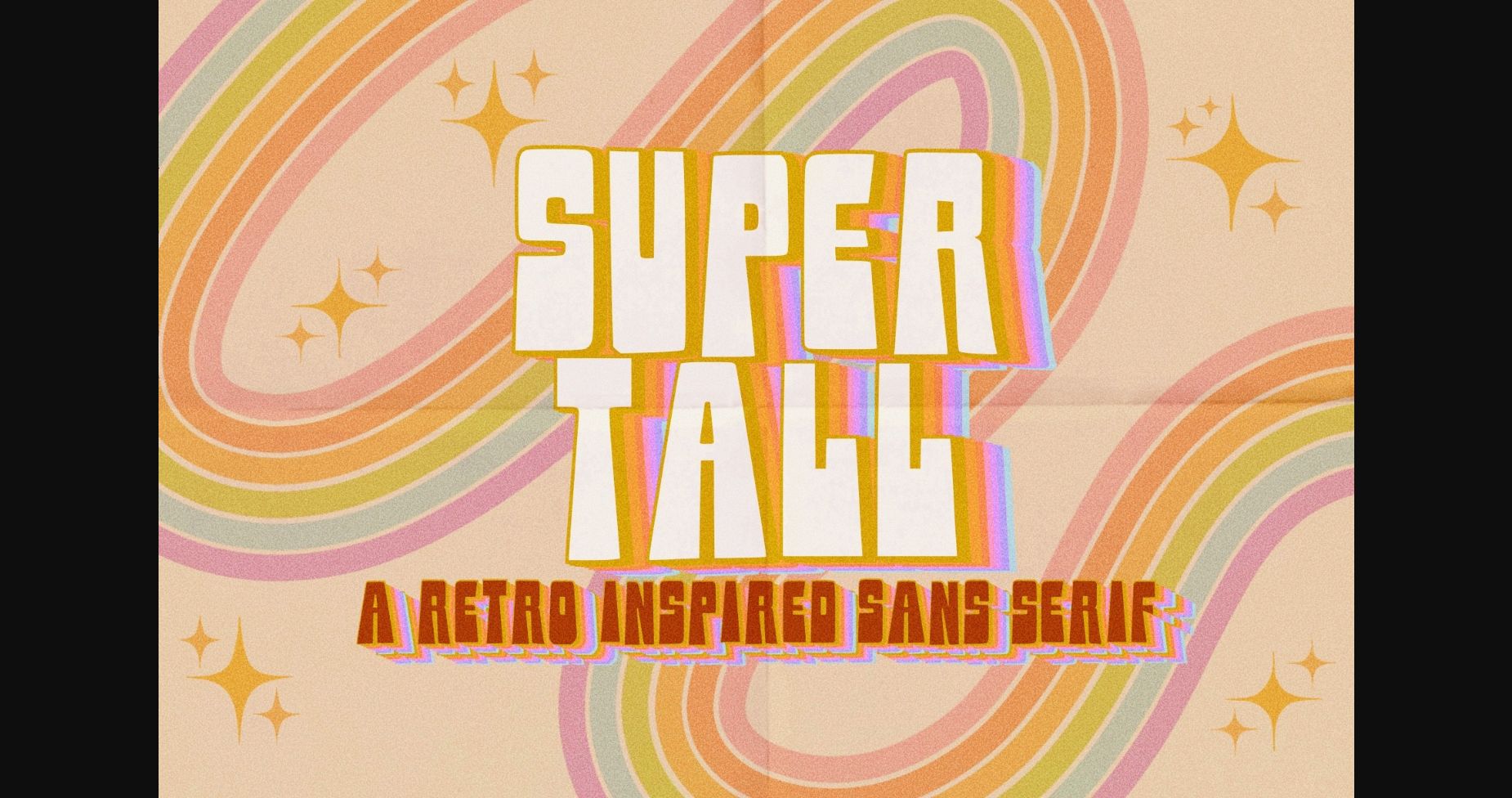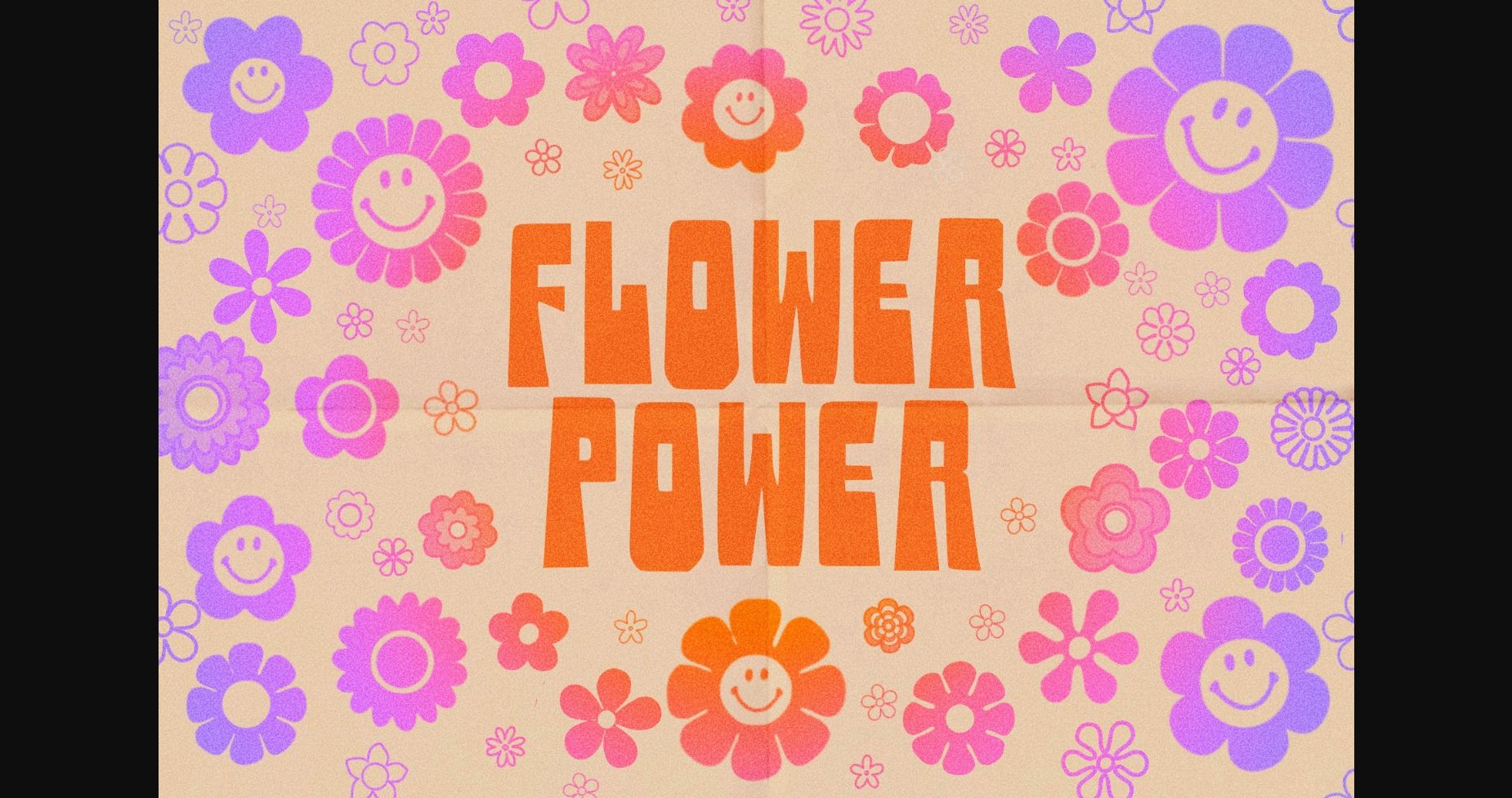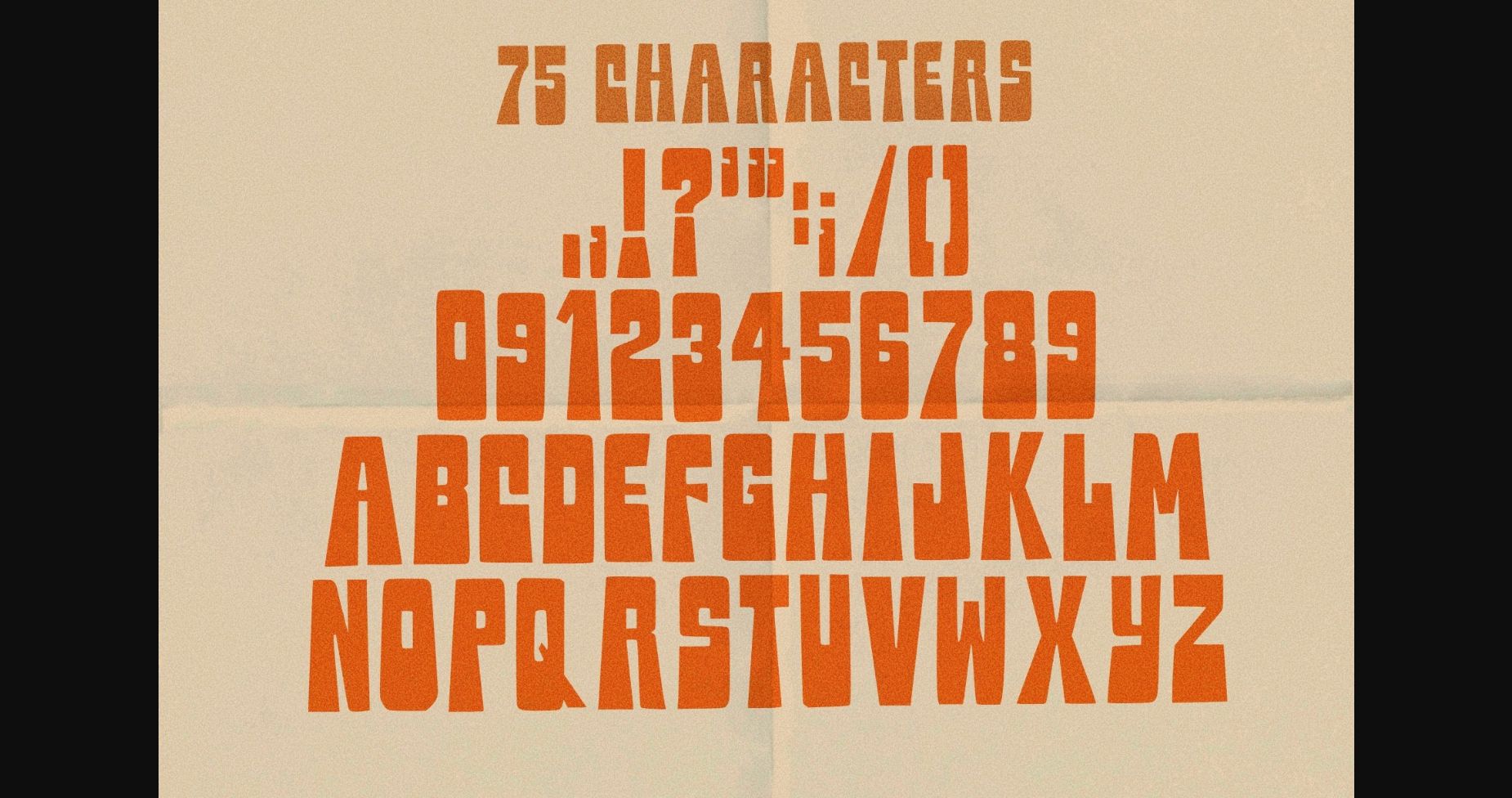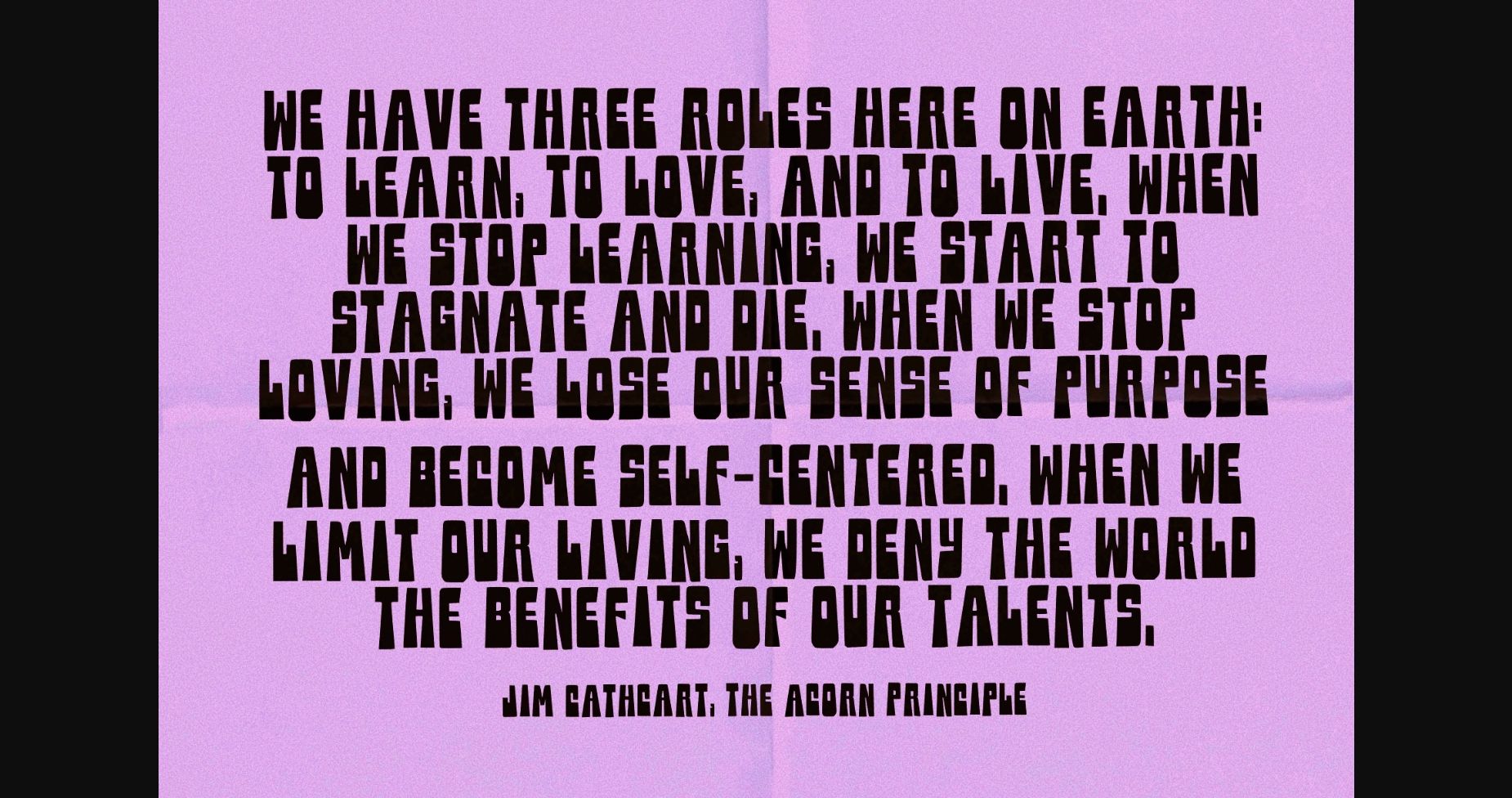
About Super Tall Font
Super Tall is a retro, stylish, and tall hippie sans-serif font that embodies the free spirit of the 60s and 70s. With elongated lines and playful curves, this font captures the essence of the counterculture movement while maintaining a sleek and modern look. Perfect for creating eye-catching headlines, posters, and branding materials that require a unique and edgy look. Ideal for anyone who wants to add a touch of retro flair to their designs.